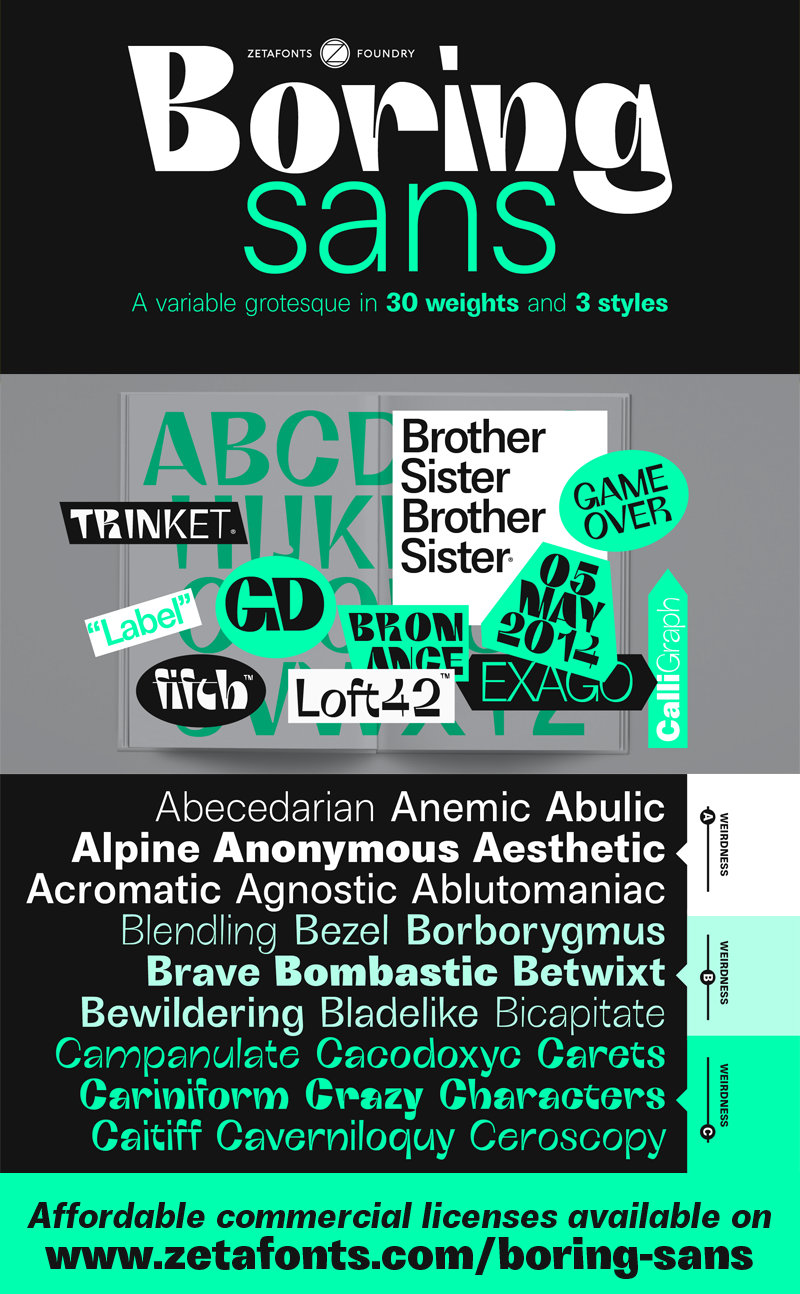
Boring Sans A
Introducing Boring Sans. This typeface family unfolds along two intriguing axes: weight and quirkiness. These dual parameters offer designers an expansive playground to explore sans-serif design. It begins with a neutral foundation, gradually morphing into a strikingly contrasting and dynamic style that's bound to turn heads on social media and beyond. Join us as we delve into the exciting world of Boring Sans!